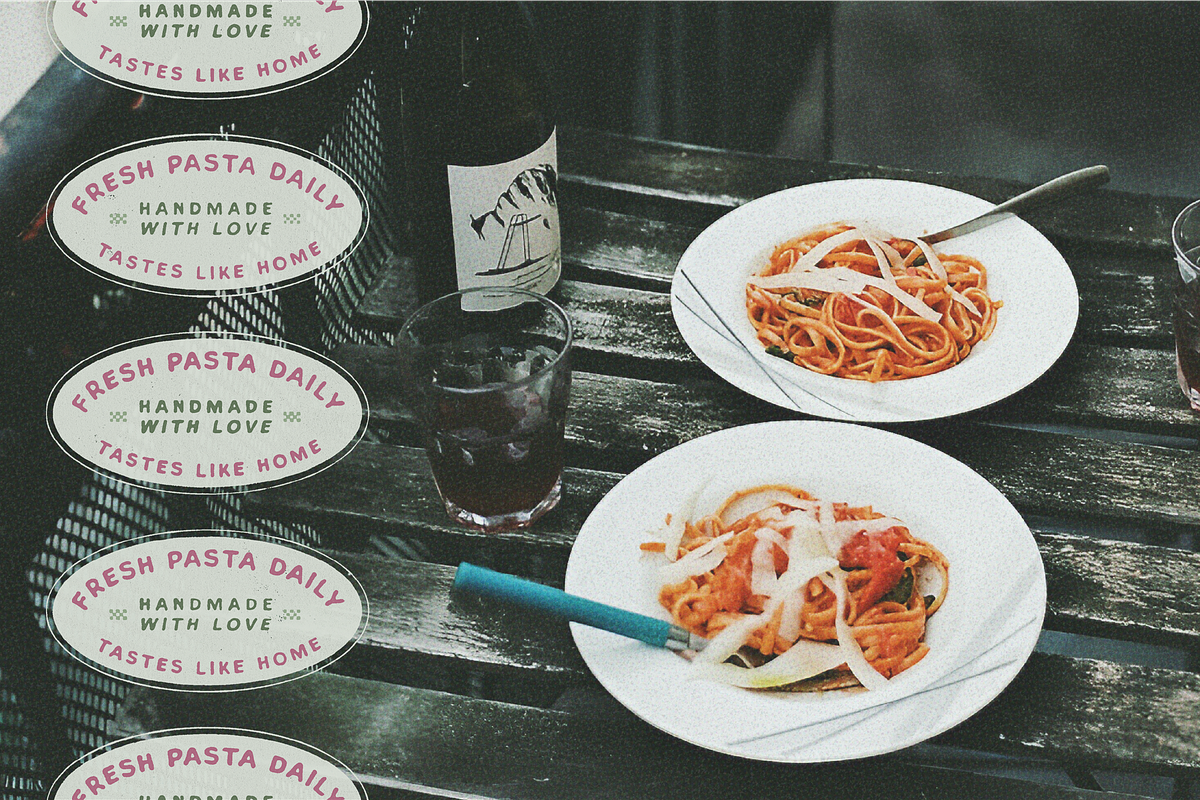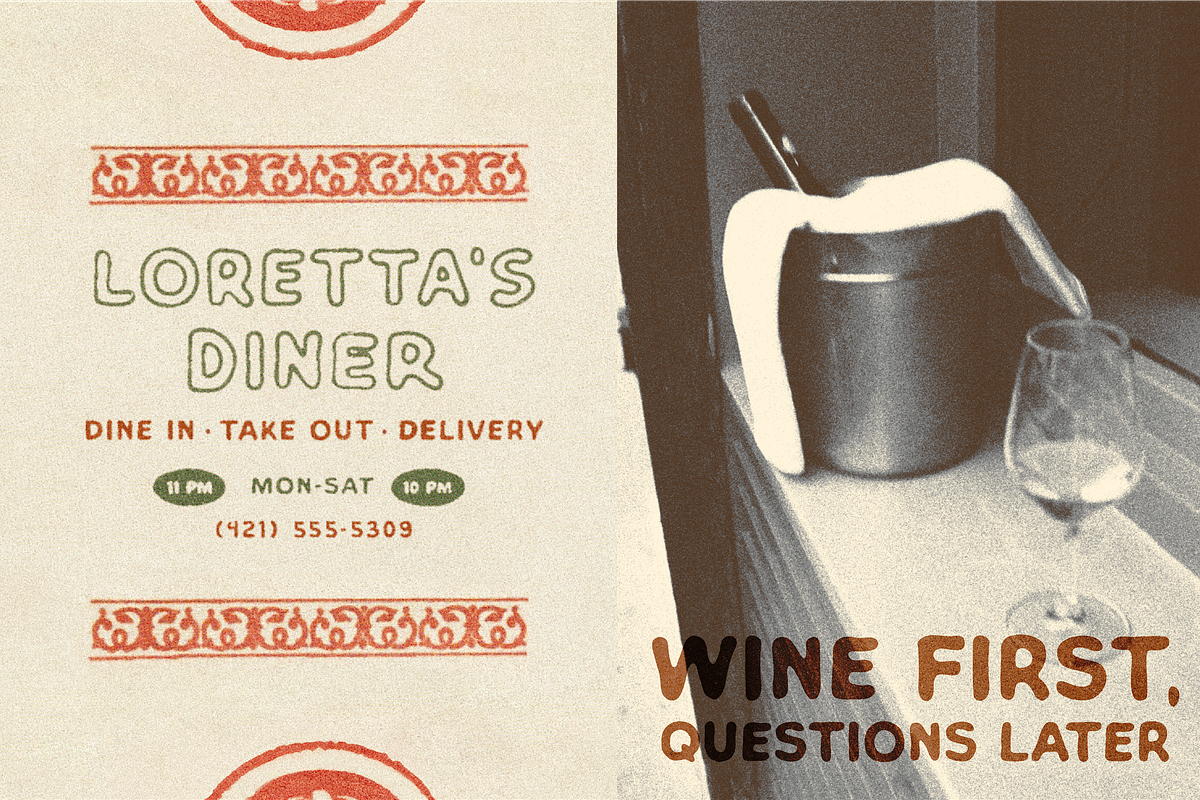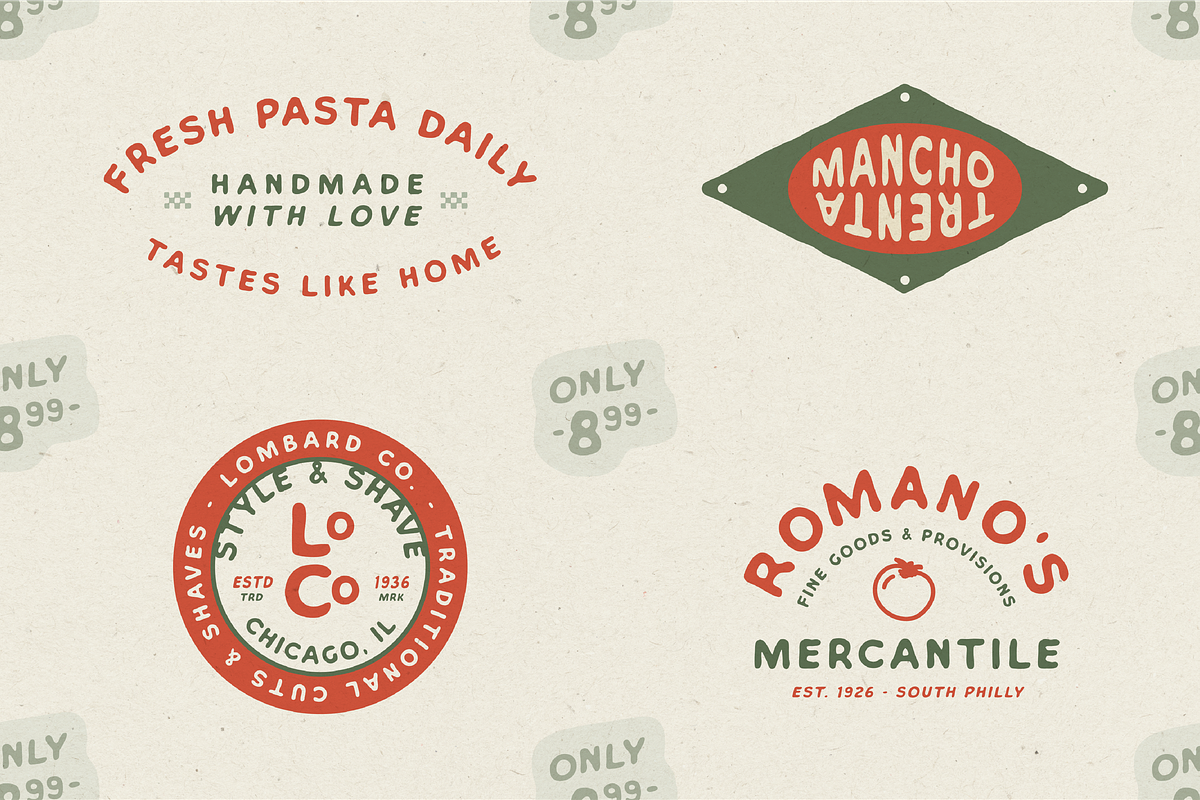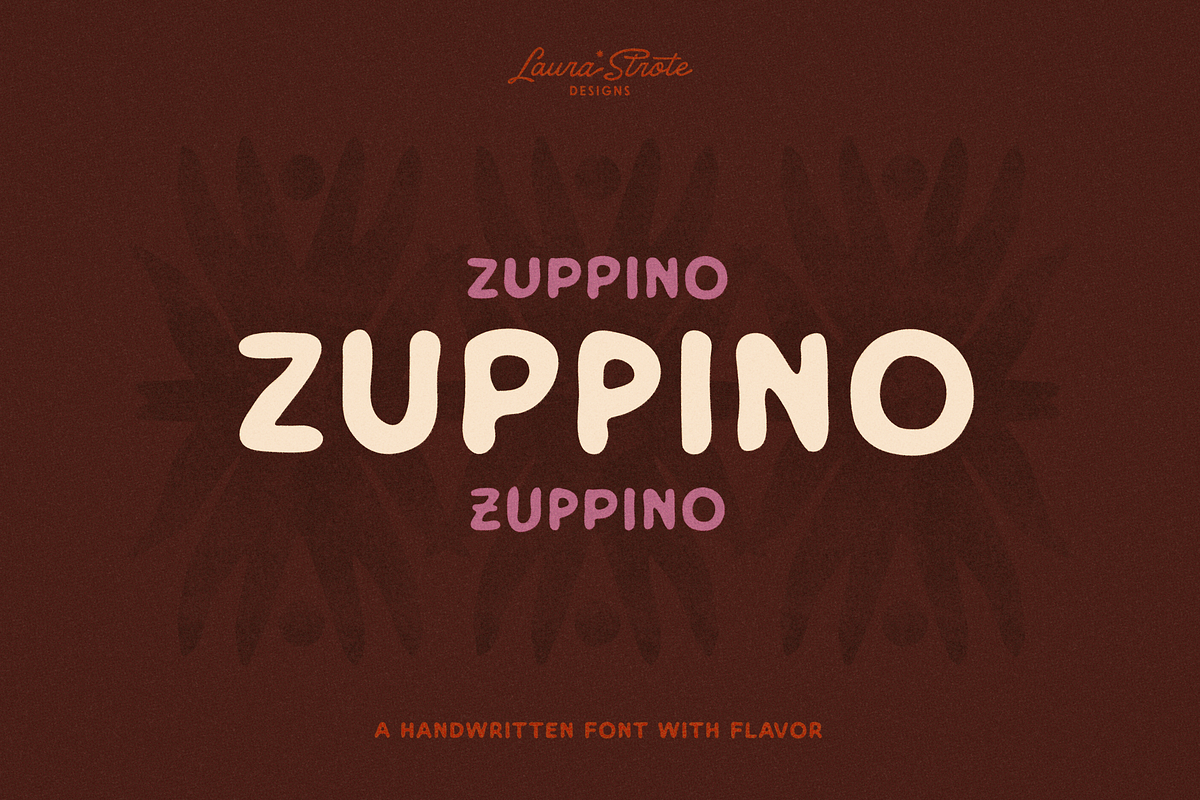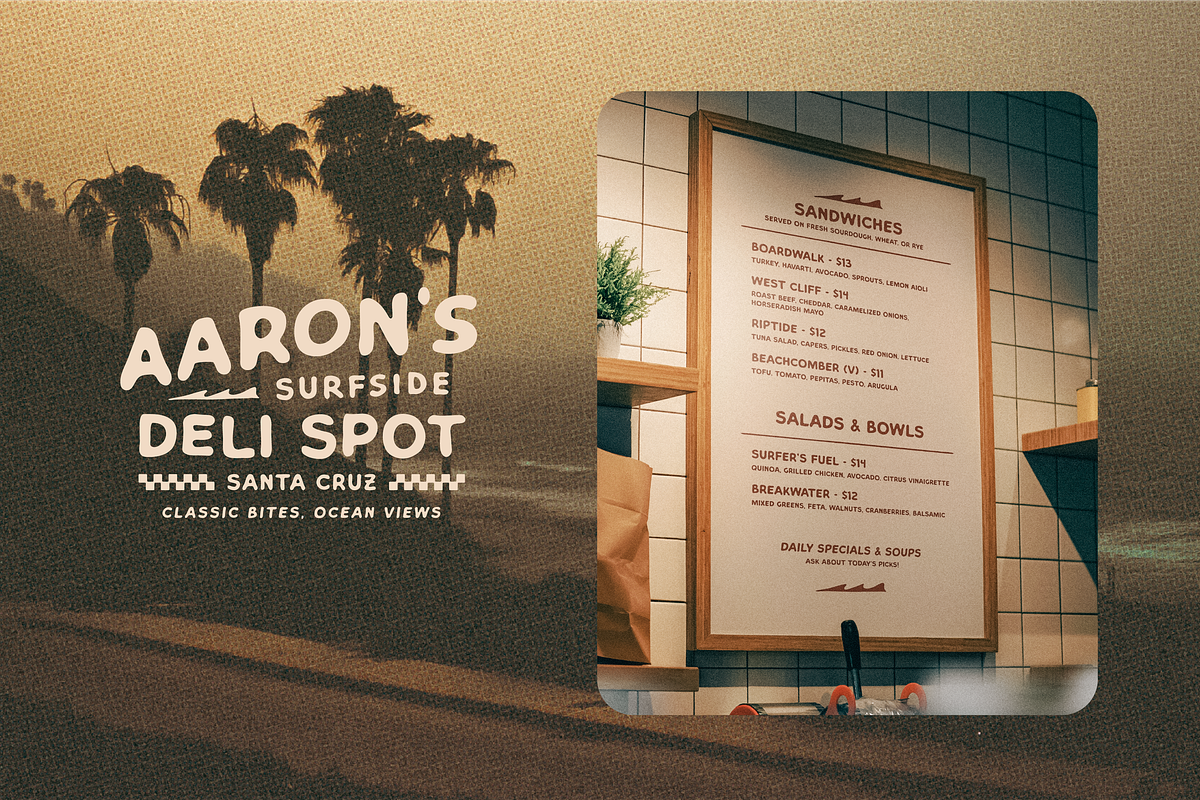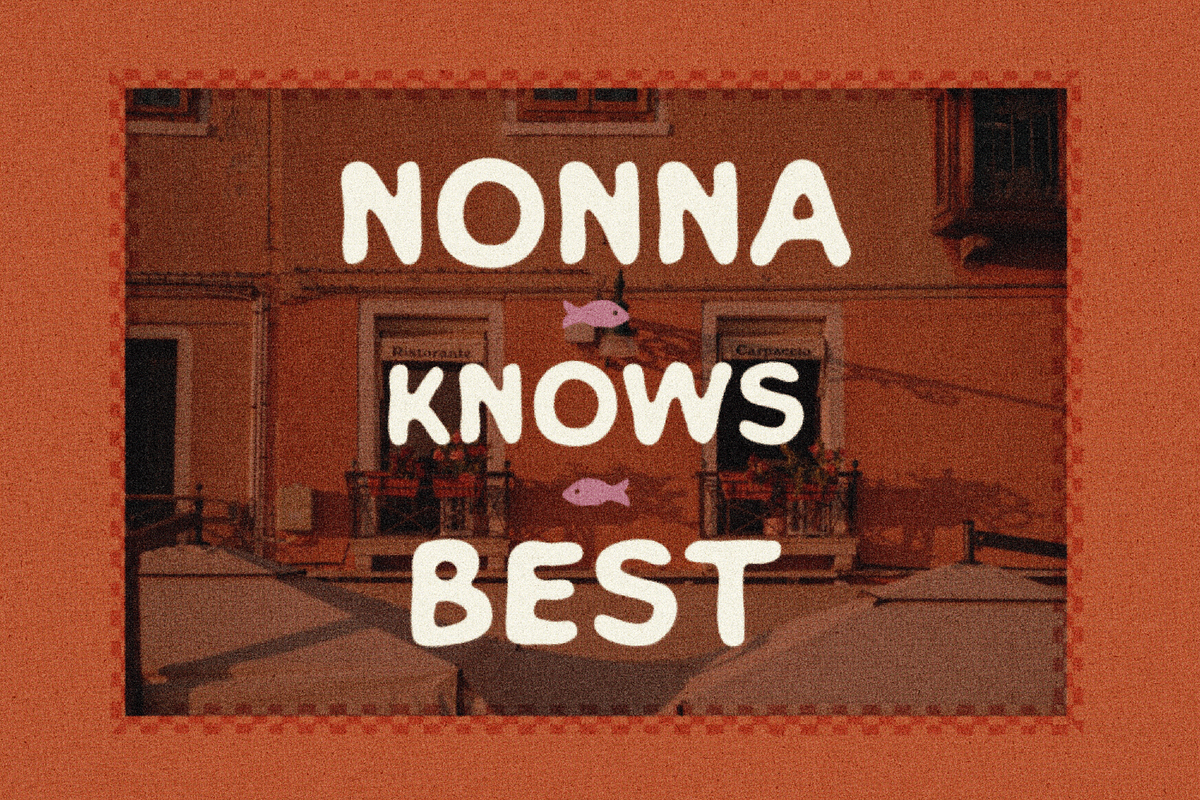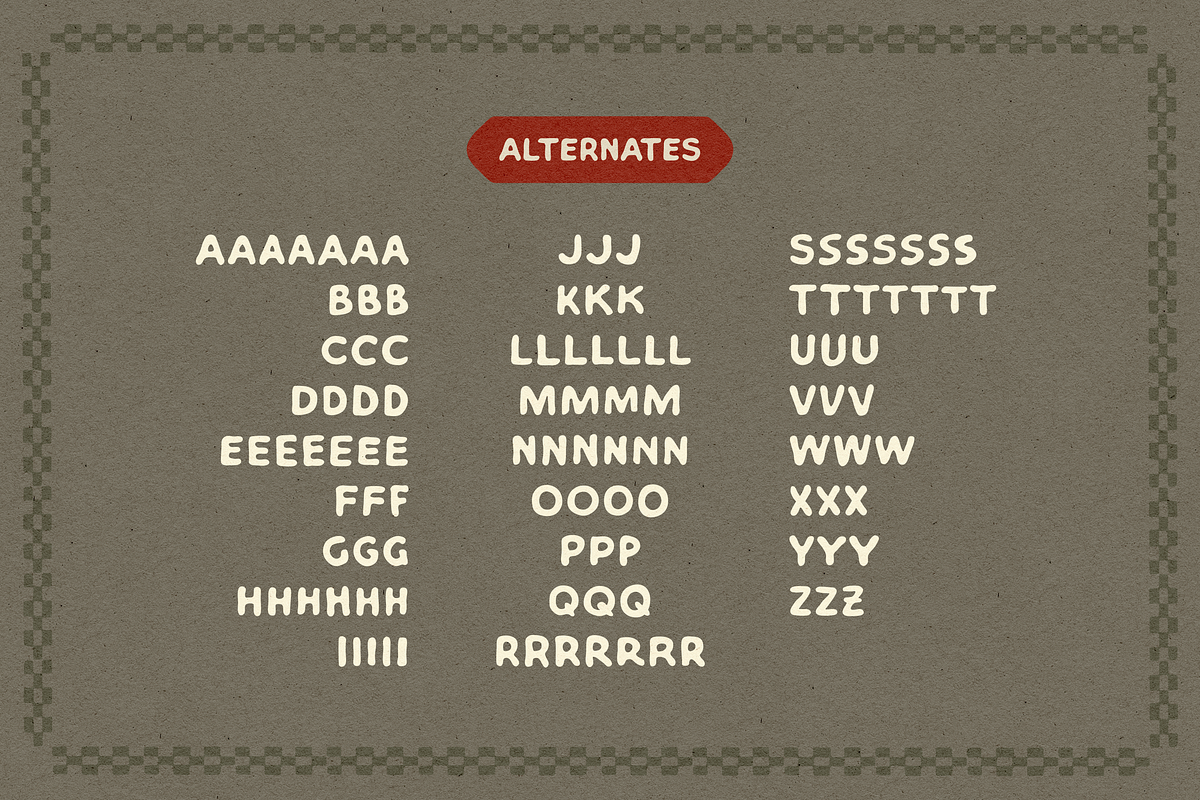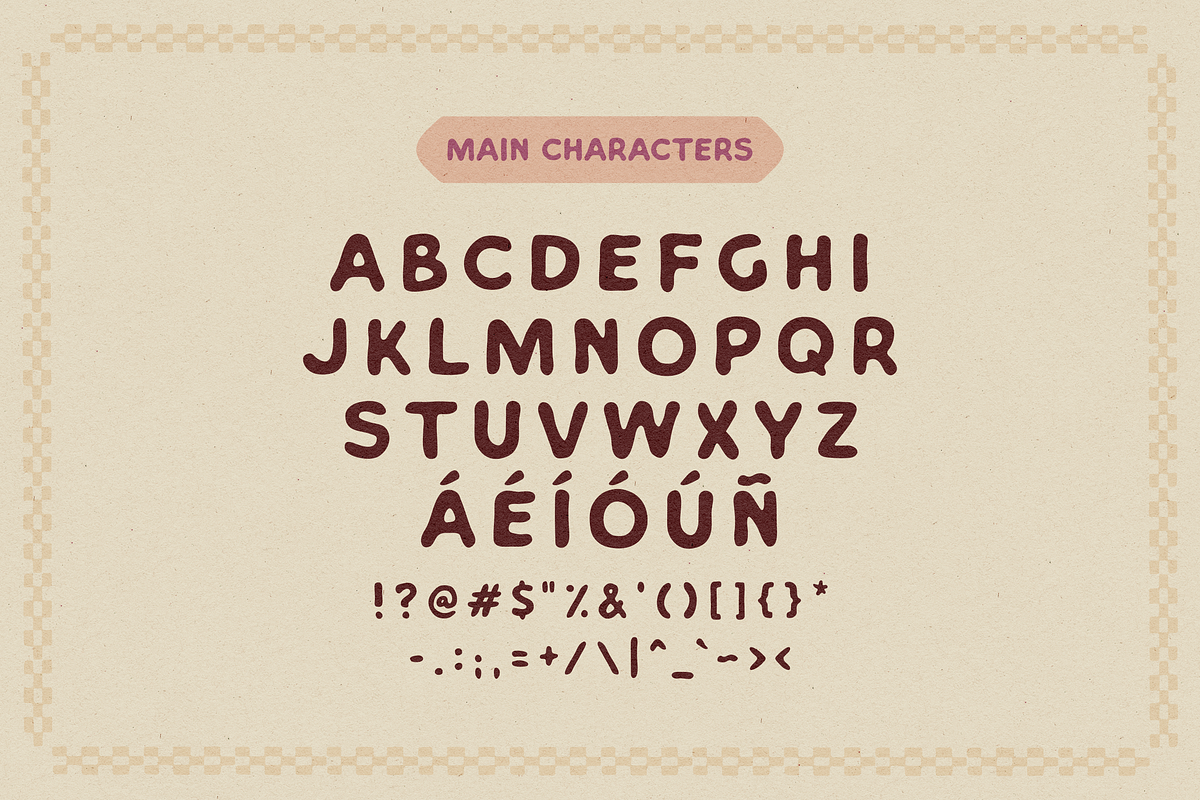
ZUPPINO | A Unique Quirky Font
Zuppino is a bold, chunky handwritten display font full of personality and charm. Inspired by vintage food packaging, family owned restaurants, and retro Italian signage, Zuppino brings warmth, flavor, and friendliness to any design.
With bouncy curves, thick strokes, and high legibility, it’s perfect for restaurant branding, menu design, food packaging, labels, posters, and artisanal product design. Whether you’re designing a pasta box, a coffee bag, or a deli menu, Zuppino shows up fresh and lovable.
It includes a full set of uppercase and lowercase letterforms, punctuation, accented characters, and bonus alternates for extra flexibility and flair. Use it clean or messy. Either way, it brings the sauce.
Full uppercase
Accented characters
Punctuation + symbols
Bonus alternate characters
Restaurant & food branding
Pasta, coffee, wine, or snack packaging
Menus, signage, deli labels, and merch
Vintage-inspired logos
Hand-drawn, artisan-style design
Retro design with modern punch